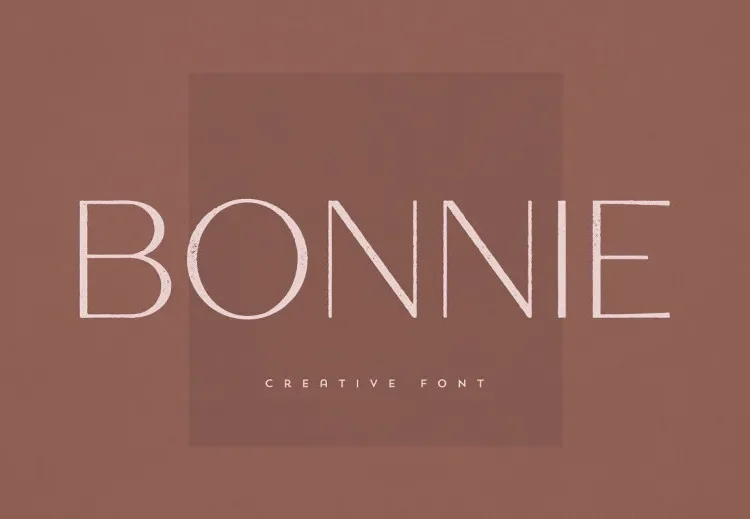
Bonnie Font
Bonnie is a sleek and versatile sans serif font that effortlessly elevates your typographic designs. Whether for headings, logos, branding, or even simple text, this font’s modern elegance makes it an ideal choice for various design projects. With its clean lines and subtle sophistication, Bonnie adds a professional yet approachable touch to any creative concept.
This font is perfect for branding purposes, promotional materials, websites, and much more. Its balanced and adaptable nature ensures that it complements a wide range of applications, making it a timeless asset for designers.
If you’re looking to add a touch of elegance and clarity to your typography, Bonnie is the font for you.